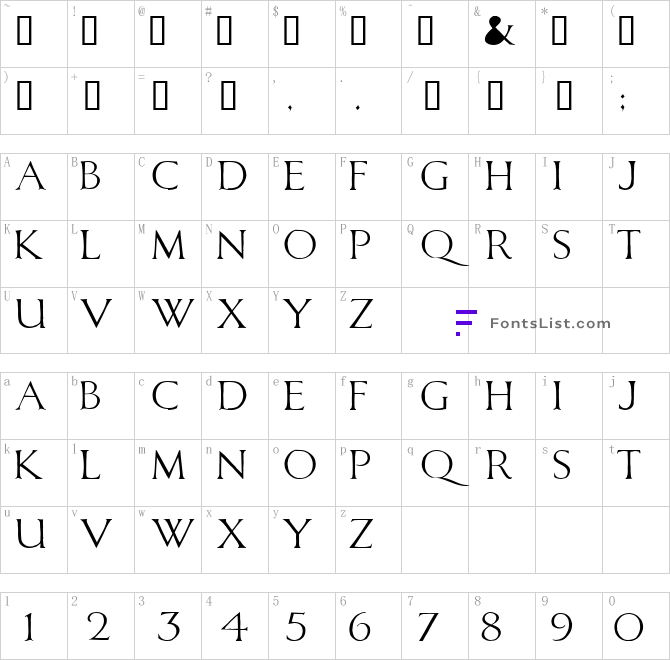
- Font Name:CaligulaDodgy
- Subfamily:CaligulaDodgy
- Full Name:CaligulaDodgy
- PostScript:CaligulaDodgy
CaligulaDodgy.ttf is a very beautiful artistic font, CaligulaDodgy.ttf is widely used in the design and printing of various books and pictures,CaligulaDodgy.ttf has a strong visual impact,CaligulaDodgy.ttf is a commonly used font in newspapers, magazines and books, and is used in posters, e-commerce Poster design, store design, logo design, font design and other fields.CaligulaDodgy.